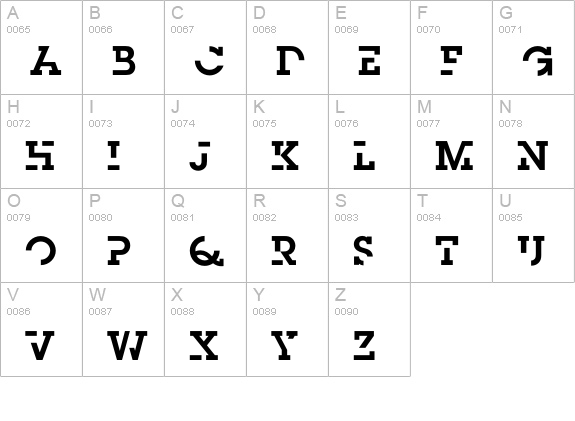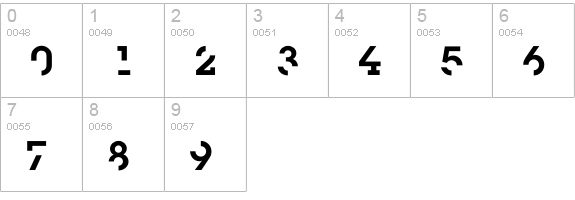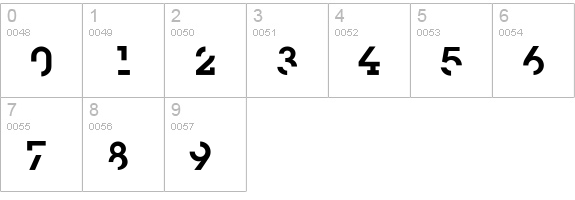
MissingLink Font Details
The MissingLink font is a modern and versatile typeface designed for creative projects that require a touch of sophistication and uniqueness. With its sleek lines and elegant curves, this font is perfect for adding a contemporary flair to your designs. Whether you are working on branding, advertising, or any other creative endeavor, MissingLink is sure to make a bold statement. What sets MissingLink apart is not only its stylish design but also the fact that it is completely free to download. That's right, you can easily access this stunning font at FontsMarket.com without spending a dime. So go ahead and elevate your projects with the MissingLink font today!